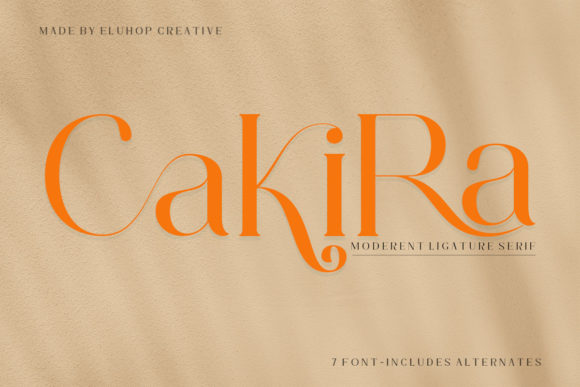
The Cakira Font: Elevate Your Designs with Elegance and Sophistication
Cakira is a beautifully crafted serif font that exudes elegance and sophistication. Its unique design elements make it an excellent choice for a wide range of creative projects, from branding and advertising to crafting and DIY tutorials. In this article, we’ll dive into the world of Cakira, exploring its features, uses, and alternatives.
An Honest Review of Cakira Font
What I Love About Cakira ✨
- ✅ Classy and distinct serif design
- ✅ Highly versatile for various design projects
- ✅ Easy to read and visually appealing
While Cakira is an exceptional font, there are a few minor quirks to be aware of:
The Designer Inspiration Behind Cakira
Cakira’s design story begins with a passion for typography and a desire to create a font that embodies both sophistication and approachability. The font’s creator drew inspiration from classic serif fonts, infusing them with modern elements to produce a unique and versatile design. The result is a font that feels both nostalgic and contemporary.
Q: What is PUA encoding, and how does it benefit Cakira users?
PUA (Private Use Area) encoding allows designers to access a wide range of glyphs and swashes, making it easier to customize and personalize their designs. With PUA encoding, Cakira users can effortlessly access additional design elements, expanding the font’s creative possibilities.
Q: Is Cakira suitable for body text?
While Cakira is an elegant font, it’s primarily designed for display purposes. However, its clear and readable design makes it suitable for short paragraphs or captions.